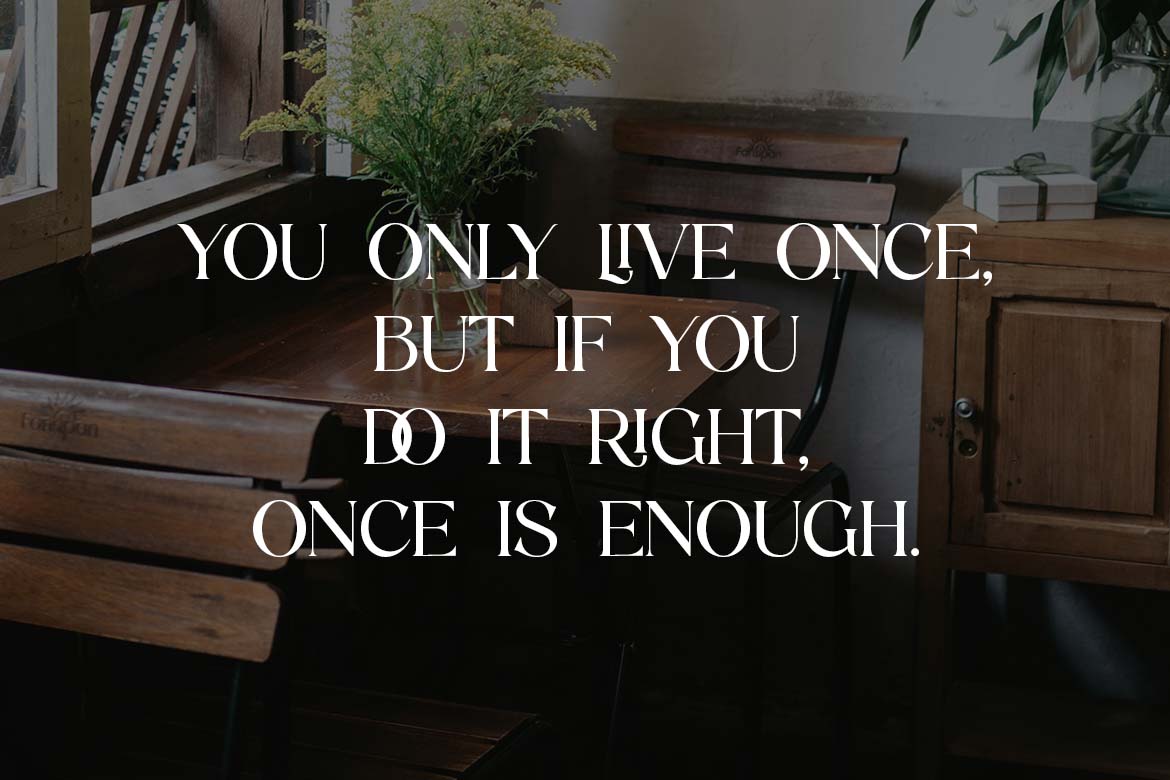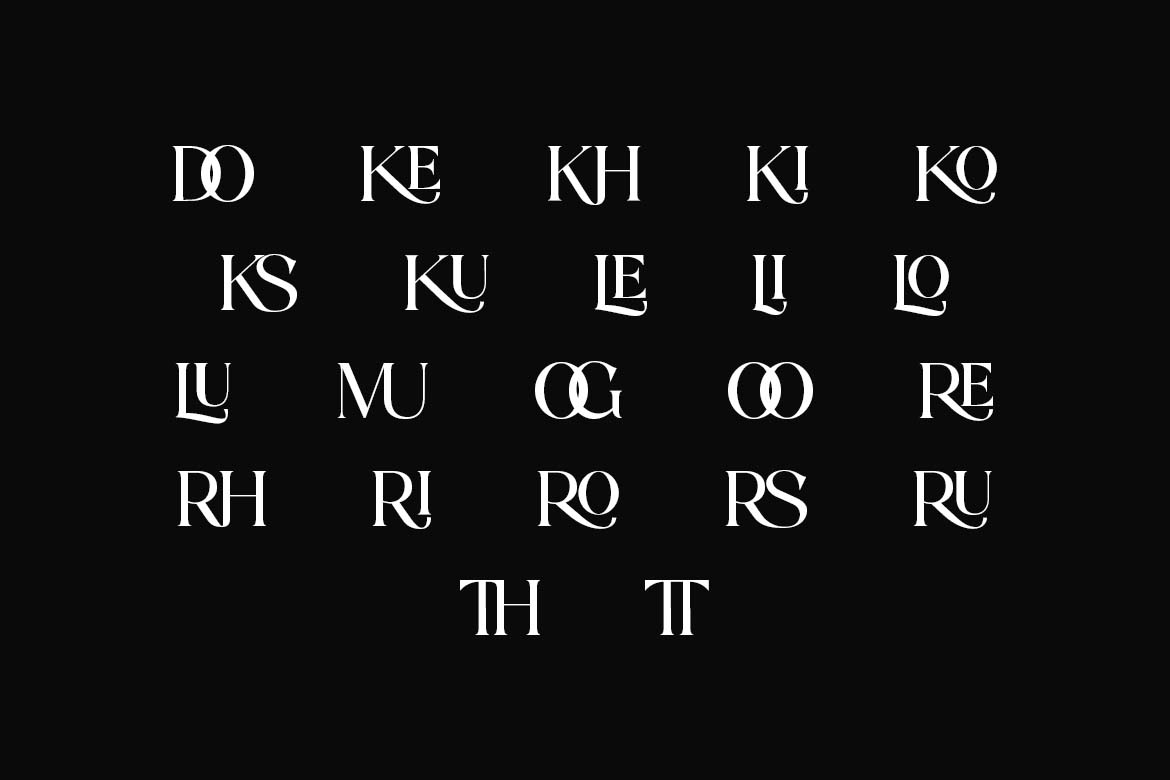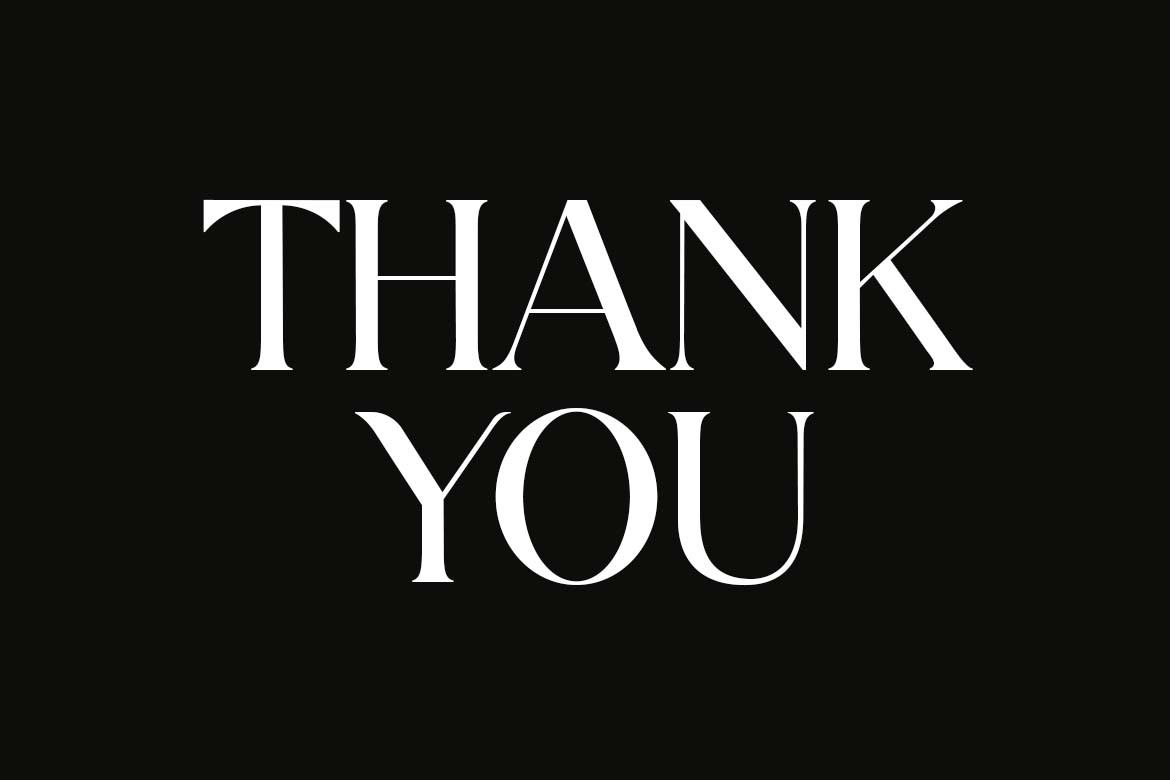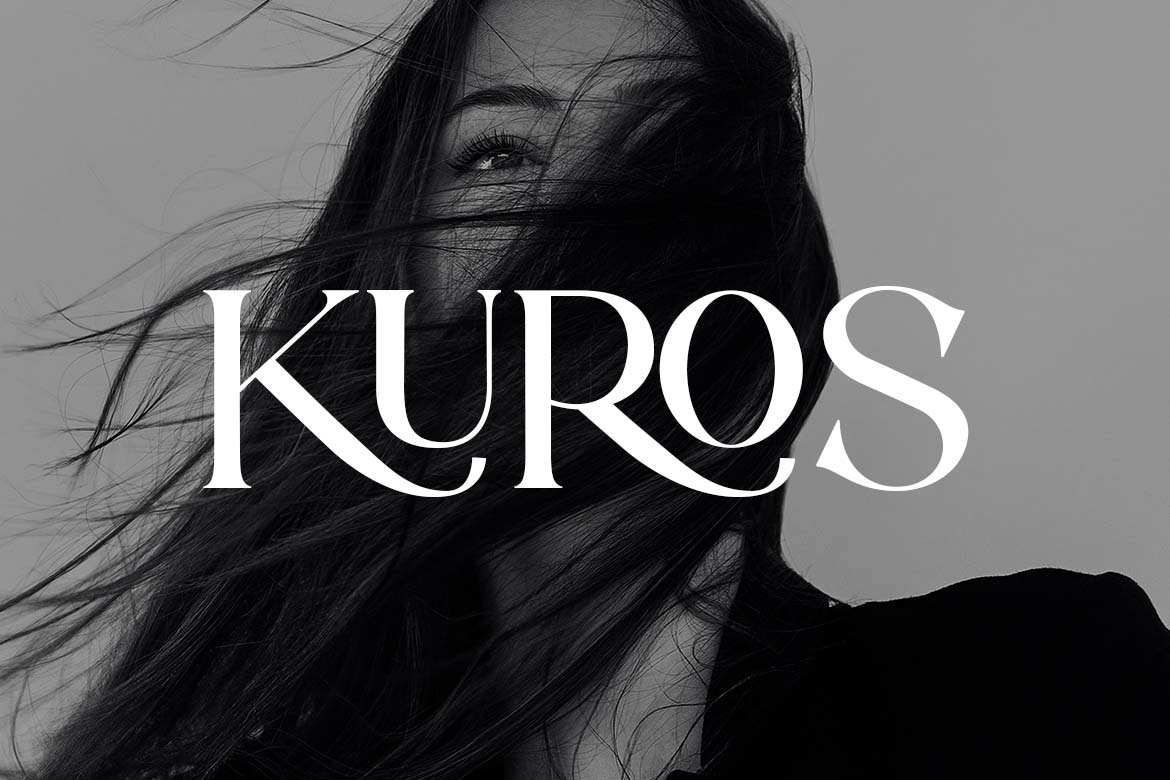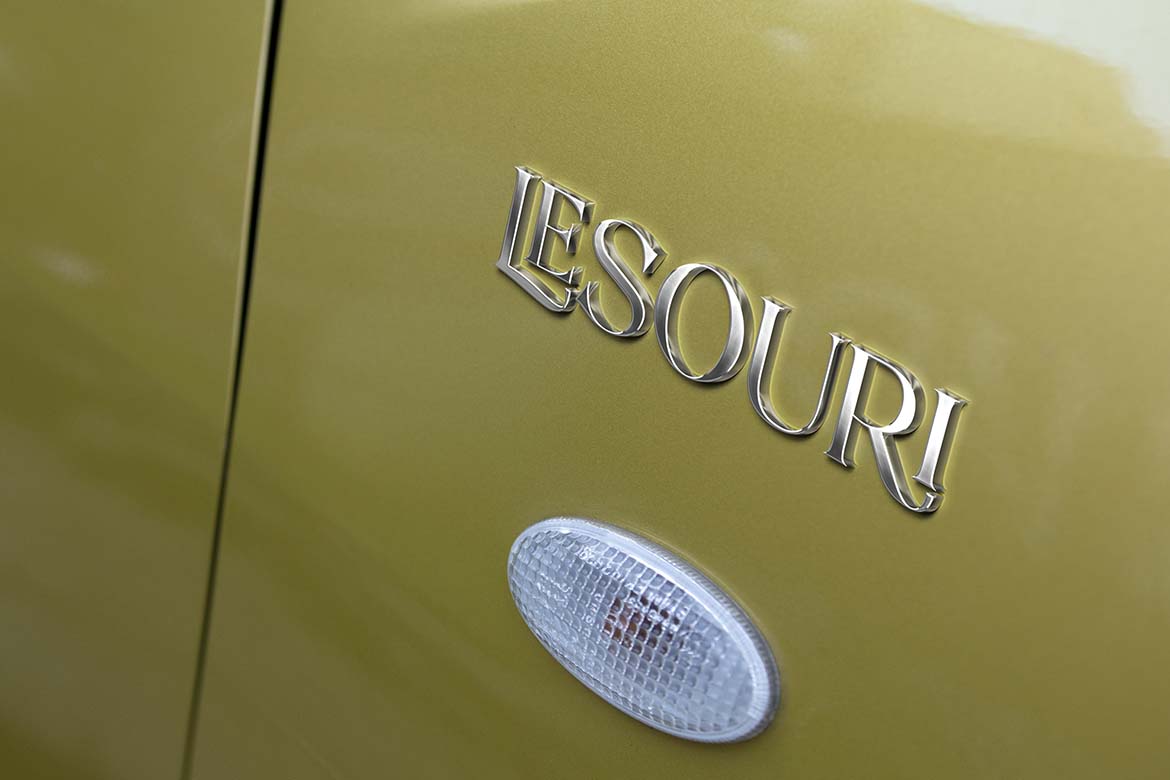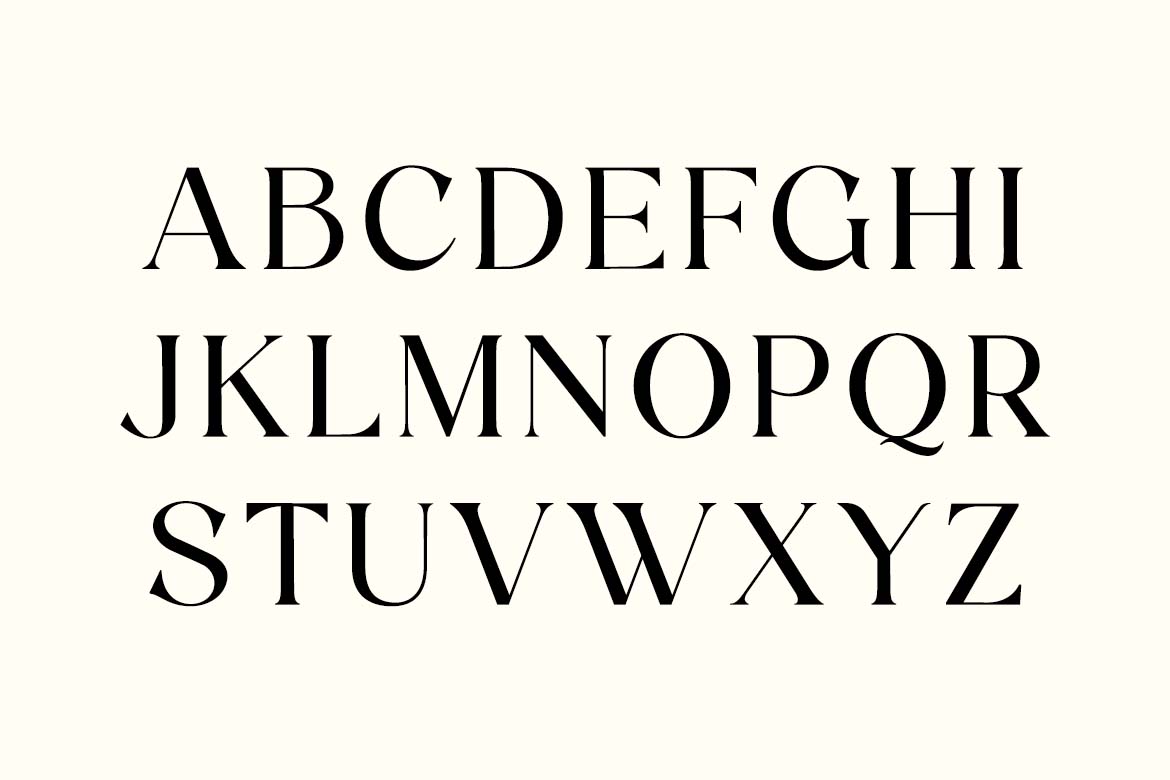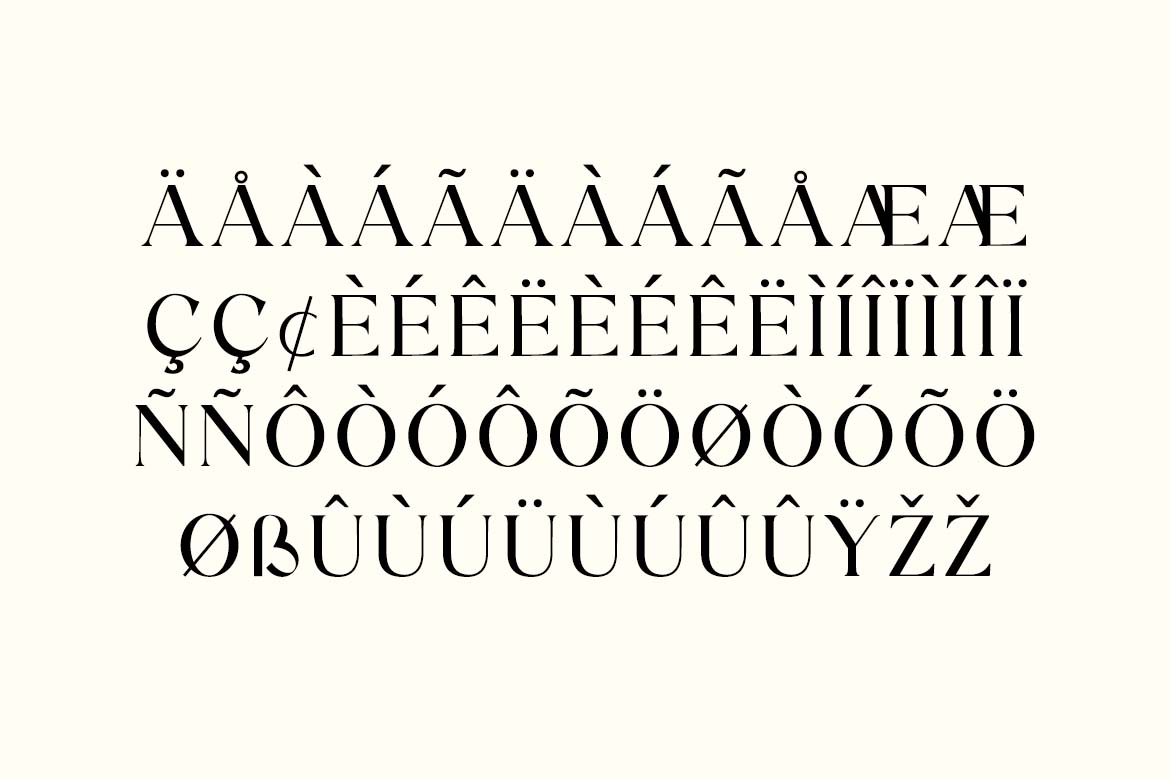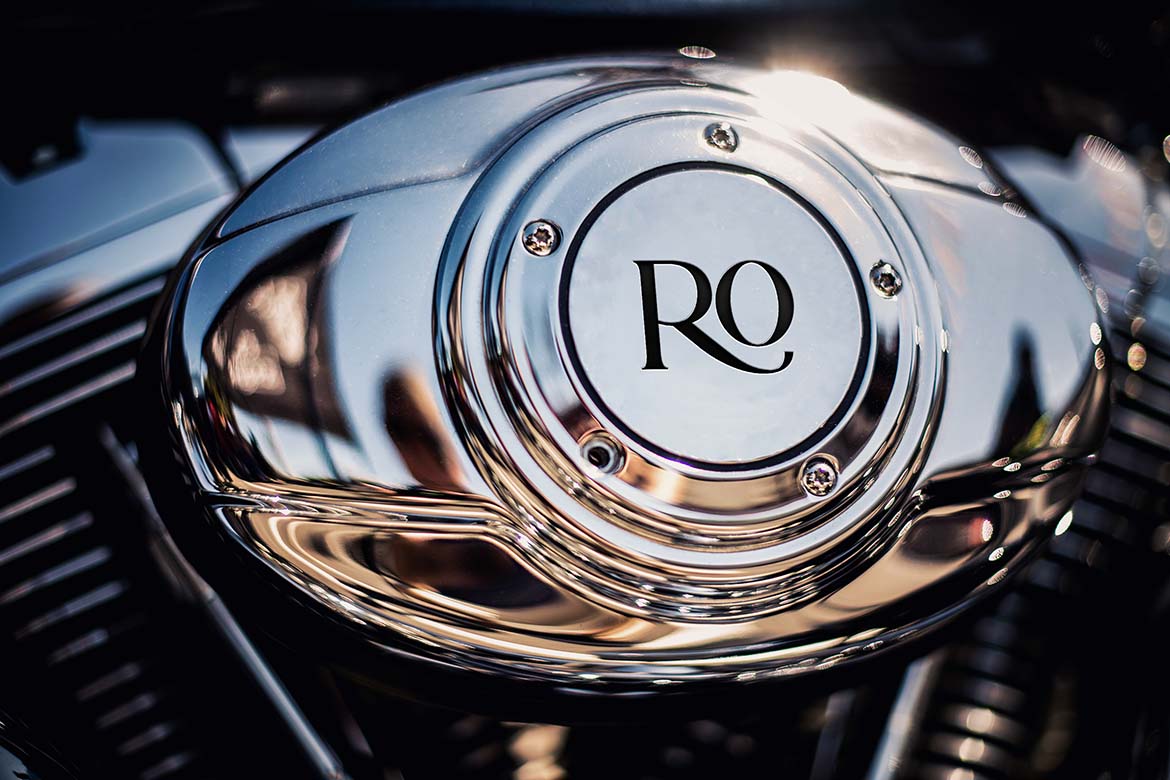
Theodora Valencia Luxury Serif Font
This font is ideally suited for a wide variety of projects, such as signature, stationery, logo, wedding, typography quotes, magazine or book covers, website headers, branding, and more. Also, fashion-related branding or editorial design displays both masculine and feminine qualities.